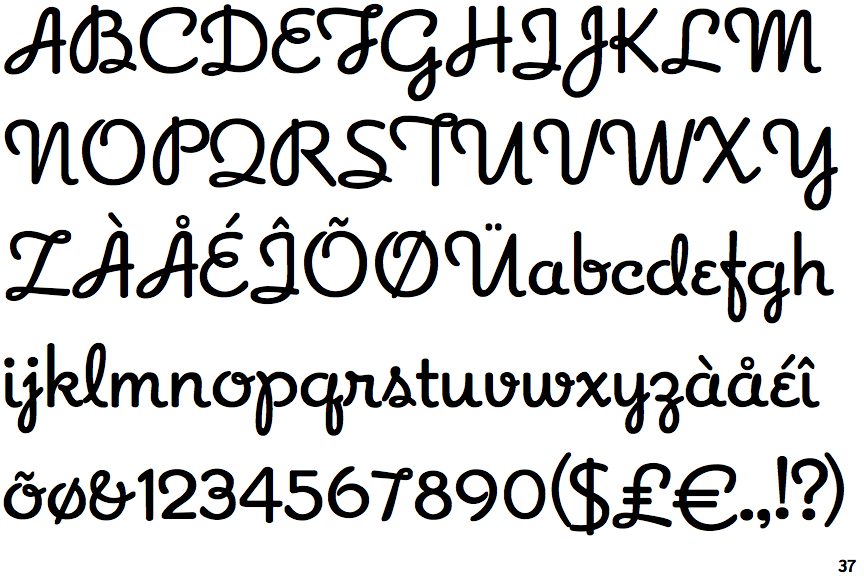
Apricots Regular Font . It includes ttf and otf files, accent characters, and is suitable for various projects and purposes. Apricot regular is the perfect font for all your fun designs. Download apricots regular otf (400) font. Apricots regular otf (400) by kaitlynn.albani Logo design, print media, souvenirs, merchandise, and creation of. Boldbouncy branding calligraphy chic cursive cute feminine font fontsfun girly handwritten invitations logos modern script. Download and install the apricot font by william jhordy. Apricots | a handwritten script font. Apricots is a modern calligraphy font with a handwritten feel. The font subfamily is regular. Comments off on apricots font 0. The apricot font has been downloaded 7,134 times. The apricot regular font appearance may differ.
Download and install the apricot font by william jhordy. It includes ttf and otf files, accent characters, and is suitable for various projects and purposes. Apricots is a modern calligraphy font with a handwritten feel. Logo design, print media, souvenirs, merchandise, and creation of. Apricots regular otf (400) by kaitlynn.albani Apricot regular is the perfect font for all your fun designs. The apricot regular font appearance may differ. Download apricots regular otf (400) font. Apricots | a handwritten script font. Comments off on apricots font 0.
Apricots Regular Font Apricots | a handwritten script font. The apricot font has been downloaded 7,134 times. Comments off on apricots font 0. It includes ttf and otf files, accent characters, and is suitable for various projects and purposes. The apricot regular font appearance may differ. The font subfamily is regular. Apricots regular otf (400) by kaitlynn.albani Boldbouncy branding calligraphy chic cursive cute feminine font fontsfun girly handwritten invitations logos modern script. Apricots is a modern calligraphy font with a handwritten feel. Download and install the apricot font by william jhordy. Apricot regular is the perfect font for all your fun designs. Download apricots regular otf (400) font. Logo design, print media, souvenirs, merchandise, and creation of. Apricots | a handwritten script font.
Apricot Regular Font Shopea Fruit Apricots Regular Font Download and install the apricot font by william jhordy. It includes ttf and otf files, accent characters, and is suitable for various projects and purposes. Logo design, print media, souvenirs, merchandise, and creation of. The font subfamily is regular. Apricots is a modern calligraphy font with a handwritten feel. Apricots | a handwritten script font. Apricots regular otf (400) by. Apricots Regular Font.
Apricots Font Script Font Cricut Fonts Modern Calligraphy Etsy México Apricots Regular Font Logo design, print media, souvenirs, merchandise, and creation of. The font subfamily is regular. Comments off on apricots font 0. Apricots regular otf (400) by kaitlynn.albani Apricots is a modern calligraphy font with a handwritten feel. The apricot font has been downloaded 7,134 times. The apricot regular font appearance may differ. Download and install the apricot font by william jhordy.. Apricots Regular Font.
Download free SA Apricots font, free saapricots.ttf regular font for Apricots Regular Font The apricot font has been downloaded 7,134 times. The apricot regular font appearance may differ. It includes ttf and otf files, accent characters, and is suitable for various projects and purposes. Boldbouncy branding calligraphy chic cursive cute feminine font fontsfun girly handwritten invitations logos modern script. Apricots | a handwritten script font. Logo design, print media, souvenirs, merchandise, and creation. Apricots Regular Font.
Apricot Regular Font Shopea Fruit Apricots Regular Font Download apricots regular otf (400) font. The apricot font has been downloaded 7,134 times. Apricots is a modern calligraphy font with a handwritten feel. Apricots | a handwritten script font. The font subfamily is regular. It includes ttf and otf files, accent characters, and is suitable for various projects and purposes. Boldbouncy branding calligraphy chic cursive cute feminine font fontsfun. Apricots Regular Font.
Apricots Handwritten Script Font (288301) Regular Font Bundles Apricots Regular Font The apricot regular font appearance may differ. Apricot regular is the perfect font for all your fun designs. Download and install the apricot font by william jhordy. The font subfamily is regular. The apricot font has been downloaded 7,134 times. Apricots is a modern calligraphy font with a handwritten feel. Comments off on apricots font 0. Apricots | a handwritten. Apricots Regular Font.
Apricot Regular Download for free at Free Fonts Apricots Regular Font Logo design, print media, souvenirs, merchandise, and creation of. The apricot regular font appearance may differ. The font subfamily is regular. Download apricots regular otf (400) font. Apricots regular otf (400) by kaitlynn.albani Comments off on apricots font 0. Apricots is a modern calligraphy font with a handwritten feel. The apricot font has been downloaded 7,134 times. Apricot regular is. Apricots Regular Font.
Ripe Apricot Apricots Regular Font Comments off on apricots font 0. The apricot regular font appearance may differ. The font subfamily is regular. Apricot regular is the perfect font for all your fun designs. Download and install the apricot font by william jhordy. It includes ttf and otf files, accent characters, and is suitable for various projects and purposes. The apricot font has been downloaded. Apricots Regular Font.
White Apricot Font Download Free for Desktop & font Apricots Regular Font Download and install the apricot font by william jhordy. The apricot regular font appearance may differ. Comments off on apricots font 0. The font subfamily is regular. The apricot font has been downloaded 7,134 times. Boldbouncy branding calligraphy chic cursive cute feminine font fontsfun girly handwritten invitations logos modern script. Logo design, print media, souvenirs, merchandise, and creation of. Apricots. Apricots Regular Font.